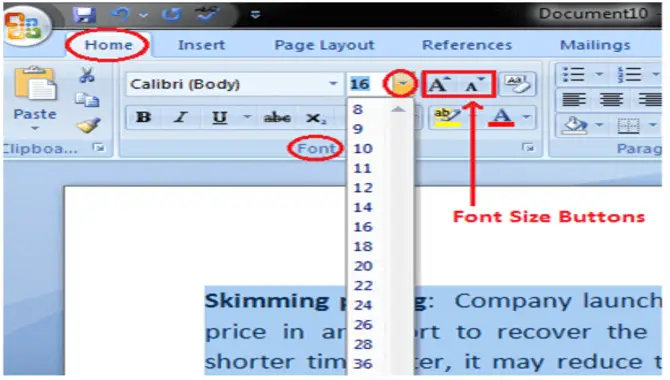
Inkscape is a vector graphic editor that can thicken fonts in the same way you would in Adobe Illustrator or other similar design programs. You can use the Stroke panel in Inkscape to adjust the stroke’s thickness and Width to create the desired consistency for your font. Making Cricut cut designs is always a fun activity. But cutting can get tedious if you have to do it in every format.
It’s better to save your work on the computer and use a cutting machine. The good news is that many tools in the world of technology help allow you to change fonts in your creations. One tool we’re talking about in this blog is Inkscape, an open-source software for creating vector graphics. In this blog, we’ll tell you how to thicken fonts in Inkscape to use in the Cricut design space.
10 Steps To Thicken Fonts In Inkscape To Use In Cricut Design Space
You can also use the Width slider on the Stroke panel to adjust the Width of your stroke, which will help you create thicker lines with your font. After you’ve modified the thickness of your stroke in Inkscape, you can click on OK to apply the change and then click on the “X” icon next to a given letter in your design to remove any thickening effects you’ve applied.
In this tutorial, you’ll learn how to thickify fonts in Inkscape to use in the Cricut design space. First, open Inkscape and create a new document. Select the Fonts tab and click on the font you want to thicken. Here are the 10 steps to consolidate fonts in Inkscape to use in Cricut design space:
1. Increasing The Number Of Strokes Per Unit Of Space
Thicken fonts in Inkscape to use in Cricut design space is a common technique that can be used to improve the legibility of text in design projects. Increasing the number of strokes per unit of length can be done by adjusting the font’s scale, Width, and joins.
This can be achieved by using outlines or filling the system with a single stroke. Using shapes or thick fonts can help to reduce the blurriness or fuzzy look of type when enlarged, while serving the system with a single stroke helps to create an incredibly bold and defined look.
By thickening fonts in Inkscape, designers may create bold and impactful design elements in their work without sacrificing readability.
2. Thinning Fonts By Decreasing Their Stroke Weight
You can decrease a font’s stroke weight by using the stroke weight slider in the Font dialog box. This will make the font thinner and more easily readable in Cricut design space. However, if you want to use a thicker font in your design, you may need to increase its stroke weight.
This may be done by using a different font or by manually increasing the size of the letterforms in your design. Thin fonts are easier to cut with a Cricut and produce cleaner, sharper results. Overall, using different fonts for your design and paying attention to their stroke weights is essential for creating extraordinary results with your Cricut.
3. Reducing The Font Size
Inkscape is a free, open-source vector graphics editor that can be used to create custom fonts. If you are working on a design and want to reduce the font size in your design, reducing the font size in Inkscape can help to reduce the file size of your design. To reduce the font size in Inkscape, click on the Text tool in the toolbox and enter a lower value in the Size text box.
You can also adjust the stroke weight of your fonts to thicken them. By thickening fonts in Inkscape, you can save space and improve readability in your design without sacrificing quality.
Alternatively, you can use filters or effects in Inkscape to enhance or change the look of your font. For example, you could apply a layer of the texturizing gradient to make your font appear heavier or more textured.
Thinning fonts in Inkscape can be done using various methods, such as reducing the font size or applying filters. Overall, there are many ways to reduce the font size in your design without sacrificing style and readability.
4. Replacing Missing Characters With Fictional Ones
Inkscape is a free and open-source vector graphics editor. It can be used to create designs for 3D printing and other creative projects. Font thickeners are available in Inkscape that can be used to add thickness to fonts in the application.
These font thickeners replace missing characters with fictional ones to improve legibility. They can be downloaded from the internet for free but must be legally purchased. Font thickeners are an excellent option if you’re looking for a way to make your fonts in Inkscape more readable and attractive.
5. Fonts That Can Be Thickened In Inkscape
Inkscape is a free and easy-to-use vector graphics editing software that can thicken fonts in the Cricut design space. Inkscape can reduce several fonts. It is relatively easy to Thicken fonts in Inkscape by changing the stroke weight or the font’s height. By thickening fonts in Inkscape, you can help improve the appearance of text in Cricut designs. Overall, Inkscape is an excellent tool for creating professional-looking Cricut projects, and it is free and easy to use.
4.How Do You Bold Text In Inkscape?
Ans: To bold text in Inkscape, highlight the reader with a bold font, and then select the “Bold” command from the “Edit” menu. You can also use the “Ctrl+B” keyboard shortcut to Bold text.
5.What Are Some Standard Options For Thickening Fonts In Inkscape?
Ans: If you want to thickness the fonts in Inkscape, you can use the “Thickness” tool to set the desired consistency. You can also use the “Subpixel” option to adjust the font spacing. Finally, use the “Emboss” and “Texturize” tools to create texture and volume.